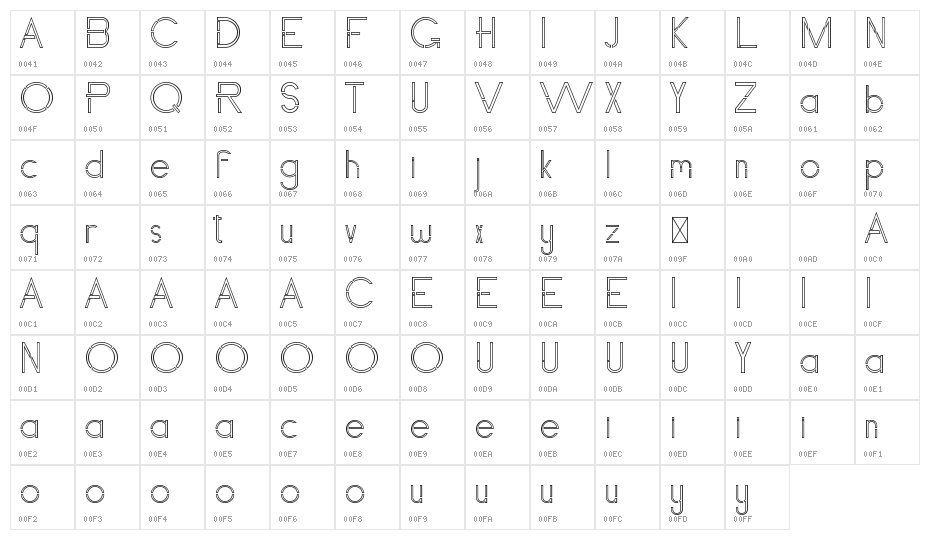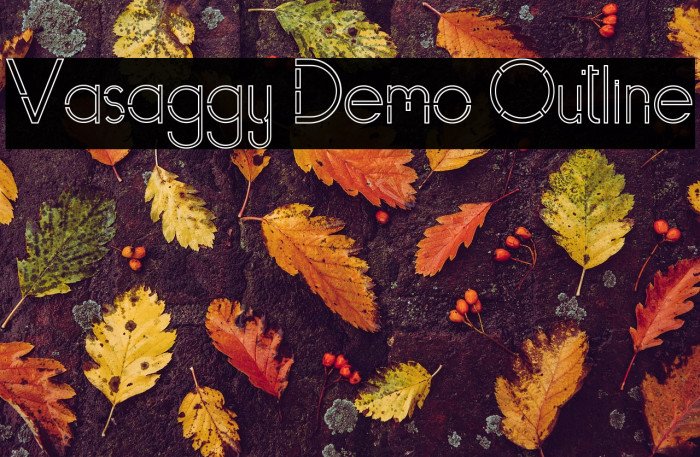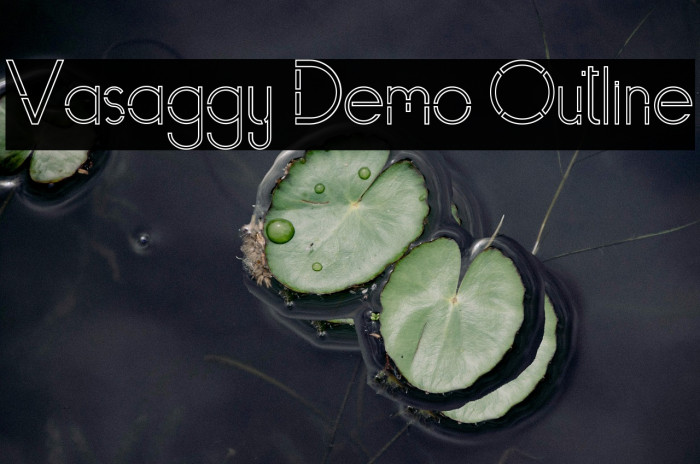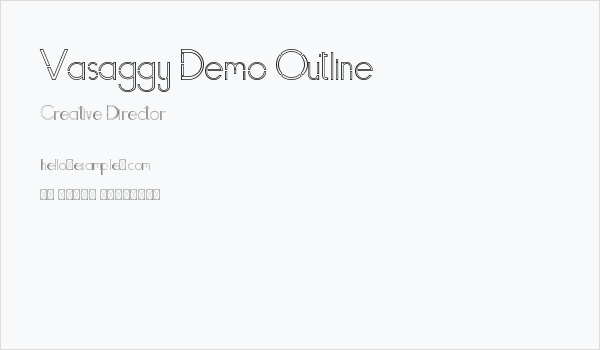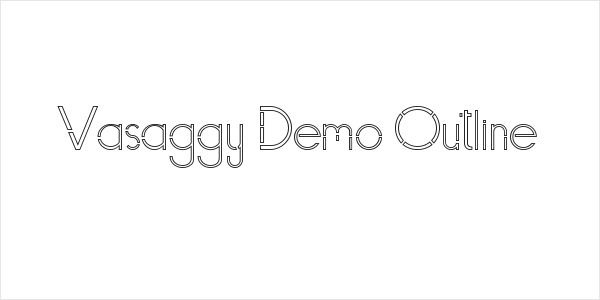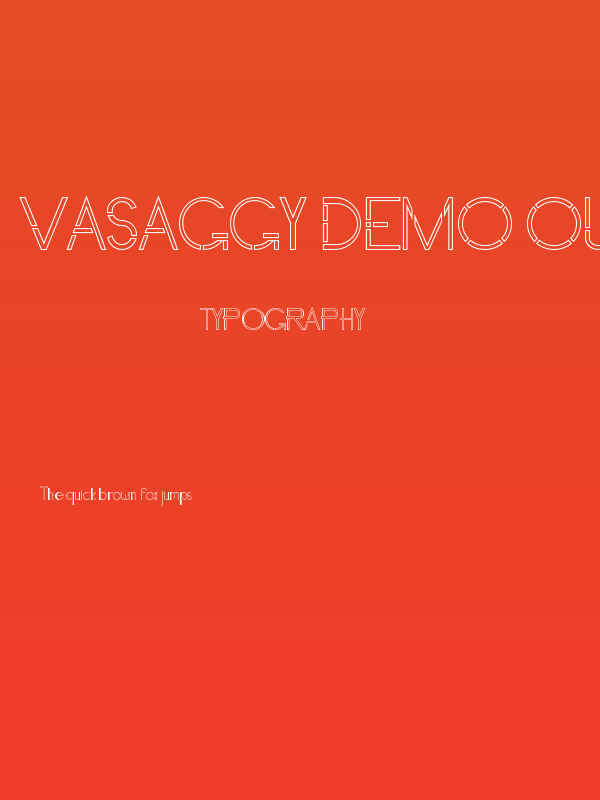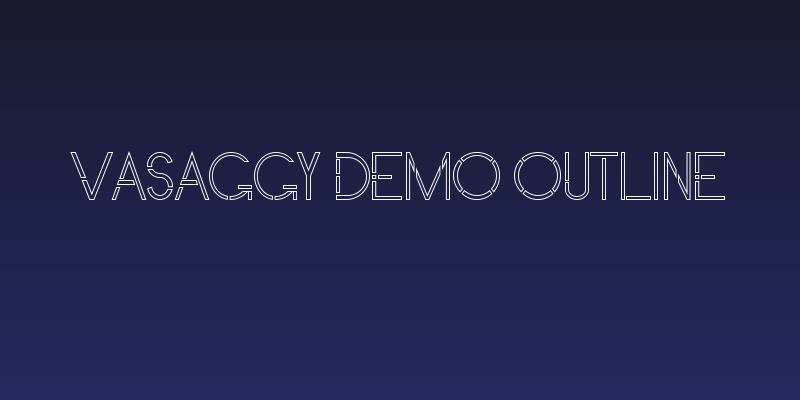
Vasaggy Demo Outline Font
Vasaggy Demo Outline Description
This font features a modern and geometric outline style, characterized by clean lines and a minimalist aesthetic. The uppercase and lowercase letters maintain a consistent height and width, creating a uniform appearance. The design is open and airy, with a focus on simplicity and clarity. The characters are constructed with a double-line technique, giving them a distinctive outlined look that enhances readability while adding a touch of sophistication. This font is versatile and can be used in various design contexts where a contemporary and sleek appearance is desired.